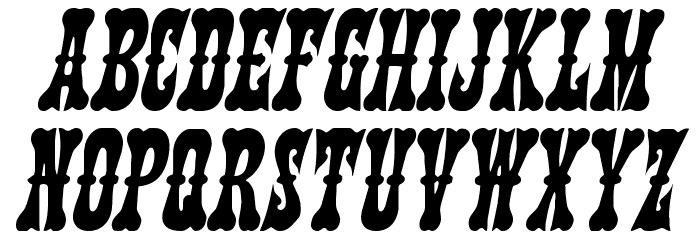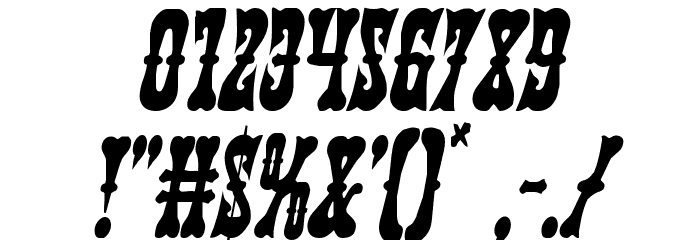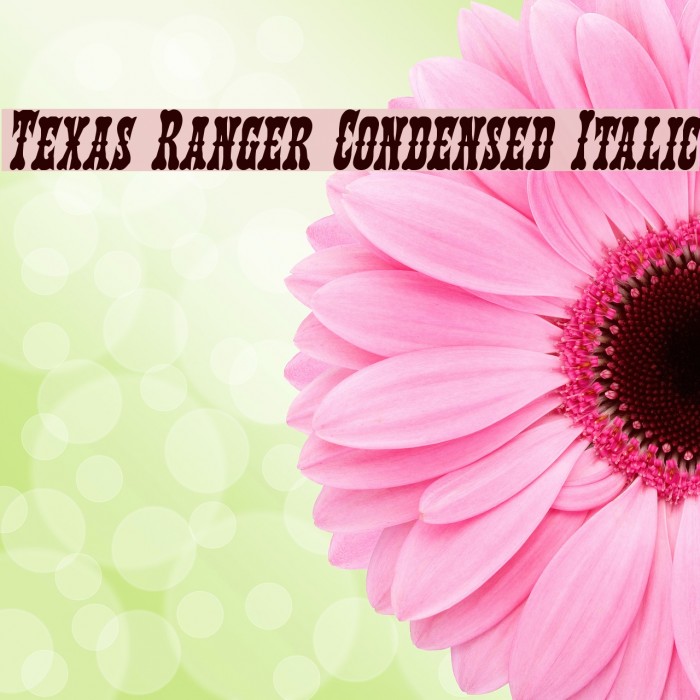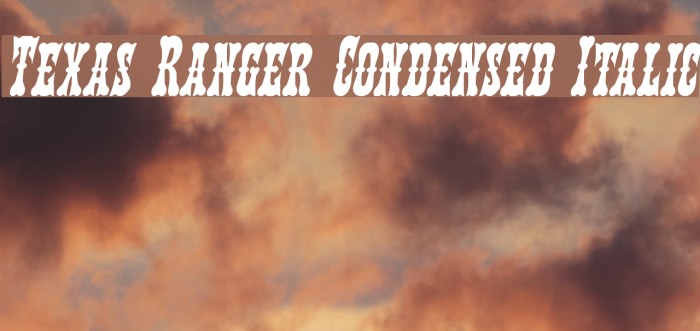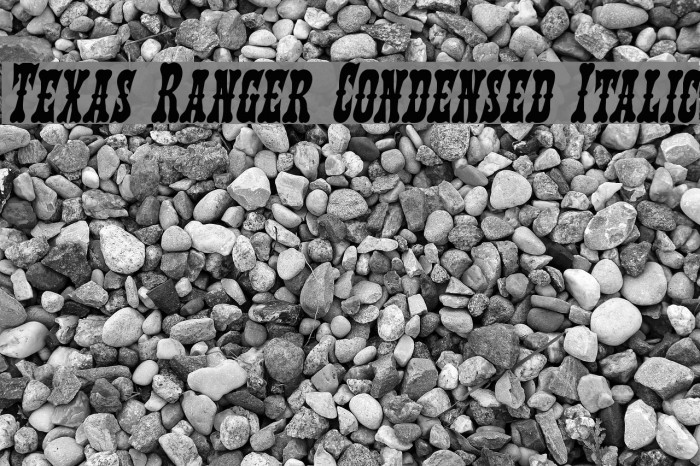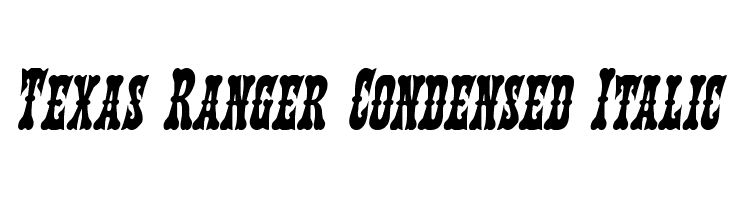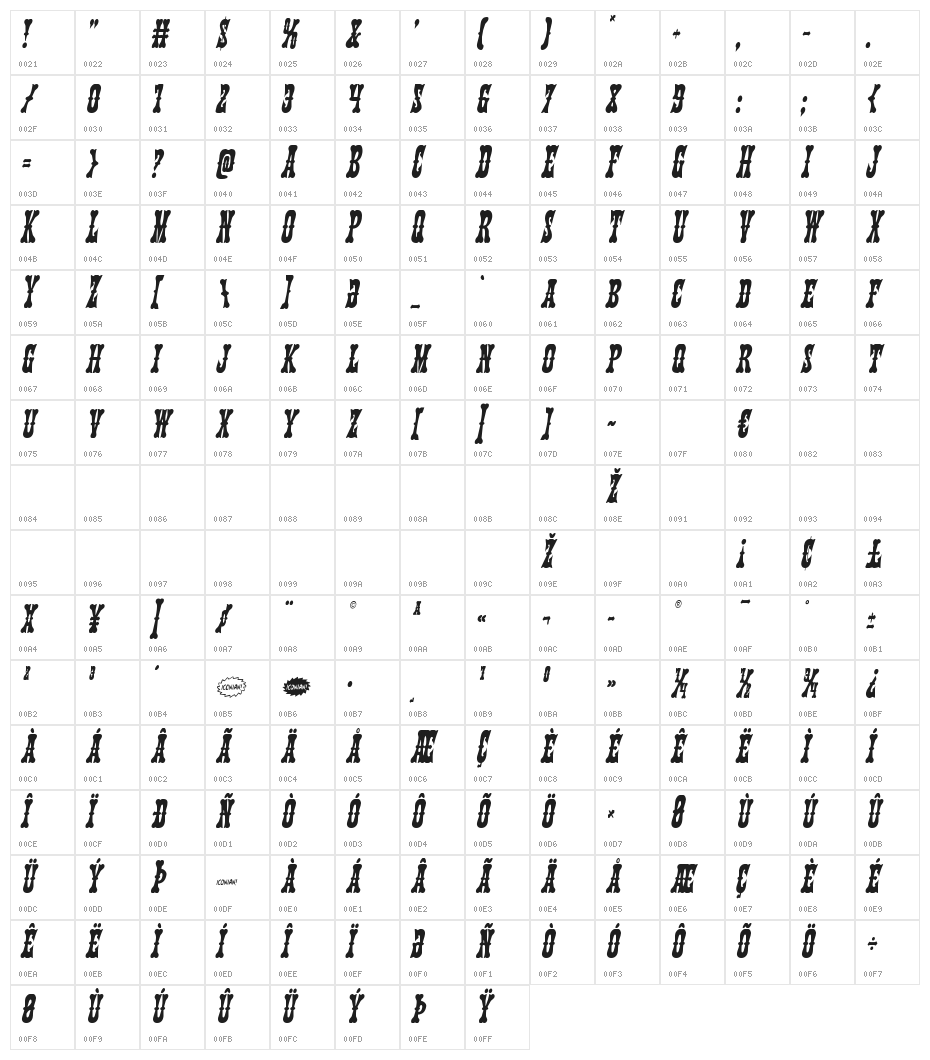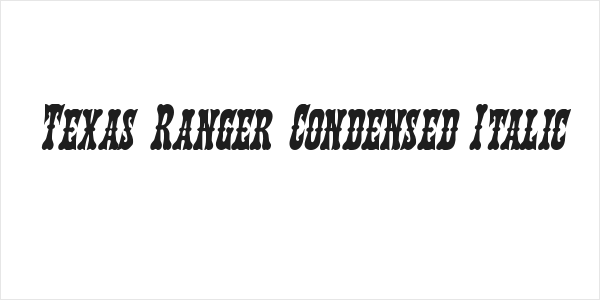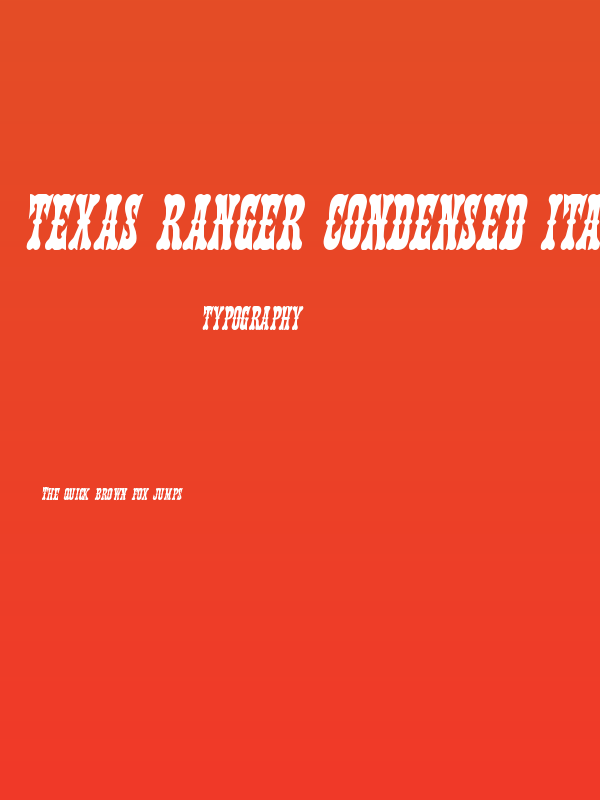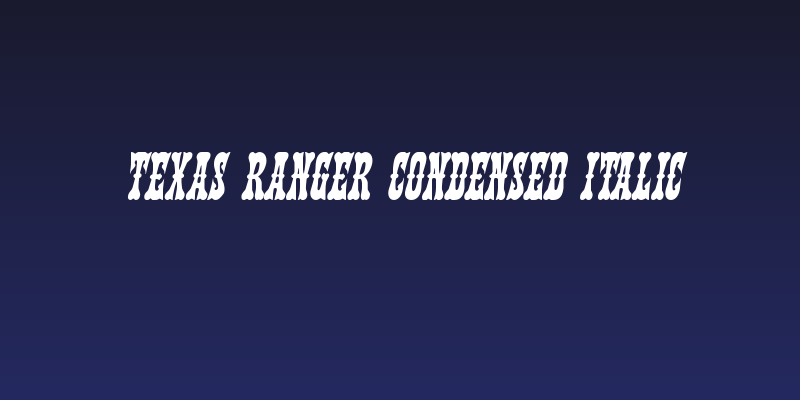
Texas Ranger Condensed Italic Font
This font features a bold and condensed style with a distinct italic slant, giving it a dynamic and energetic appearance. The characters are heavily stylized with thick strokes and sharp edges, creating a strong visual impact. The uppercase and lowercase letters maintain a consistent design, while the numbers and special characters complement the overall aesthetic. The font's unique style is reminiscent of vintage western themes, making it suitable for projects that require a bold and adventurous look.
Bold, condensed, and italic with a vintage western flair.
- Font: Texas Ranger Condensed Italic
- Proposed Projects: Ideal for posters, branding, and signage that require a bold, adventurous look.
- Character Spacing: Tight
- Overall Style: Vintage